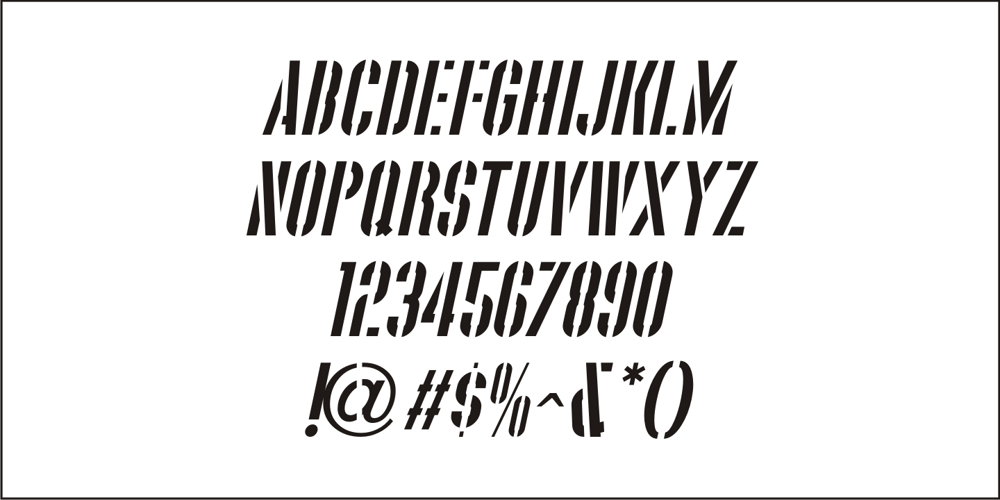
Supplier Stencil JNL
Supplier Stencil JNL font
Supplier Stencil JNL Font Family was designed by Jeff Levine and published by Jeff Levine. Supplier Stencil JNL contains 2 styles and family package options. The design idea for this condensed sans serif stencil font was inspired by a post-World War II brass stencil spotted in an online auction. The United States was assisting Europe with much-needed goods, and the text in the middle of a “stars and stripes” shield used for marking the shipping containers read “For European Recovery supplied by the United States of America”. It was the first line (“For European Recovery”) that became the working model for Supplier Stencil JNL, which is available in both regular and oblique versions.